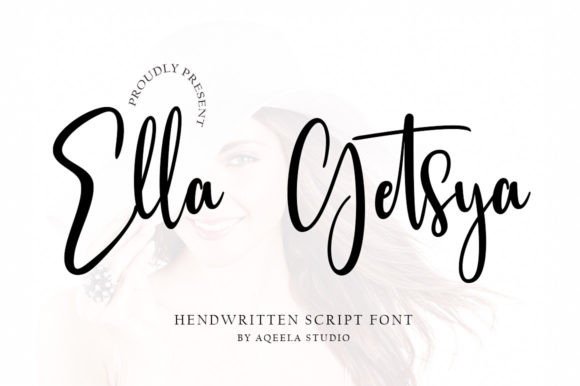
Dive into the world of captivating typography with Ella Getsya, a font family born from the fusion of elegance and creativity. Inspired by the fluidity of handwritten artistry, Ella Getsya adorns your words with a seductive charm that dances gracefully across the page. Each letter, crafted with tender care, carries the soul of an artist's hand, imparting a sense of heartfelt emotion into your designs.
With Ella Getsya, you'll discover a symphony of typographical artistry where lines embrace empty space in a delicate ballet. This harmonious interplay creates an organic, natural aesthetic that breathes life into your creations. Whether you're crafting logos, branding materials, social media designs, or any other visual masterpiece, Ella Getsya elevates your words with a touch of sophistication and timeless appeal.
Picture your designs illuminated by the radiant glow of neon, captivating attention with an eye-catching luminosity. Ella Getsya's unique letterforms dance vibrantly against a backdrop of vibrant hues, evoking a sense of playful energy and captivating intrigue. Embark on a journey of visual seduction as your words transform into luminous works of art, leaving an indelible mark on your audience's minds.
Welcome to the realm of Ella Getsya, a font family that transcends the ordinary and invites you to embrace the extraordinary. Let your creativity soar as you unveil the boundless possibilities of typographical beauty. Experience the transformative power of Ella Getsya, where your words become mesmerizing expressions of art, leaving a lasting impression on the hearts and minds of those who behold them.